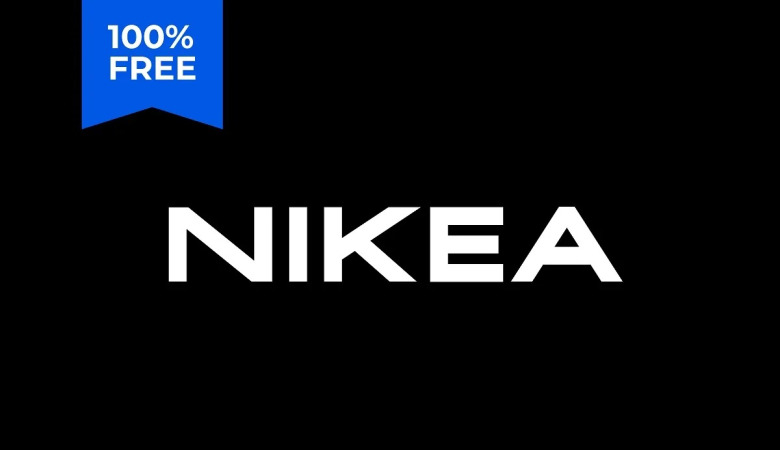
Nikea Font
This free all-caps sans serif is so versatile; it looks great in almost any context because it has smooth and clean lines with just a hint of contrast. This font works beautifully for logos, branding, and web headings all for free!
Nikea Sans Serif Font Free